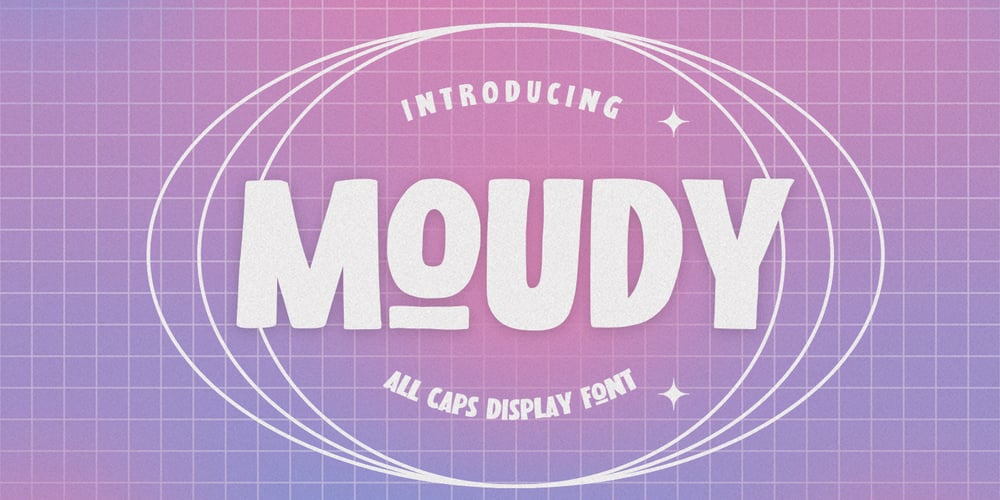
Moudy
Moudy font
Moudy Font Family was designed by Abdul Malik Wisnu, Anang Fibriyanto and published by Gassstype. Moudy contains 1 styles and family package options. Hello Everyone, introduce our new product MOUDY is All Caps Display Font with a natural feel. This handmade font will make your design has a beautiful natural touch for each details. It is perfect for any design project as Invitation,logo, book cover, craft or any design purposes.MOUDY is Inspired by Food Logo style and combination with Unique Craft style. that will fulfill your design needs for quotes,sporty theme, logotype, wordmark, etc. This has many opentype features and support multi language.You can activate 7 Alternates glyphs OpenType panel.